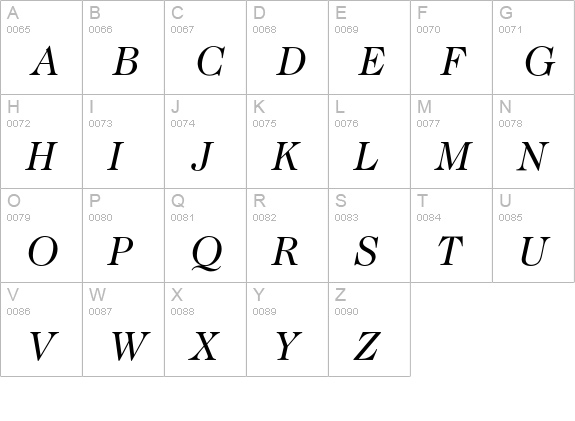
Caslon 224* Book Italic Font Details
Caslon 224* Book Italic is a comfortable, highly readable, italic variant in the Caslon typeface family \xE2\x80\x94 well suited to long-form body text, articles, and editorial content.
Caslon 224 Book Italic font exudes elegance and sophistication with its gracefully slanted letterforms and delicate serifs. Its italic style adds a touch of flair to any design, making it perfect for conveying a sense of refinement and style. The Caslon 224 Book Italic font is versatile and suitable for a wide range of applications, from editorial layouts to branding and packaging design. Its timeless appeal and classic design make it a popular choice for designers looking to add a touch of sophistication to their projects. Best of all, the Caslon 224 Book Italic font is available for free download at FontsMarket.com. Now you can access this stunning font without any cost, making it an excellent choice for both personal and commercial projects. Don't miss out on the opportunity to elevate your designs with the Caslon 224 Book Italic font – download it for free today!